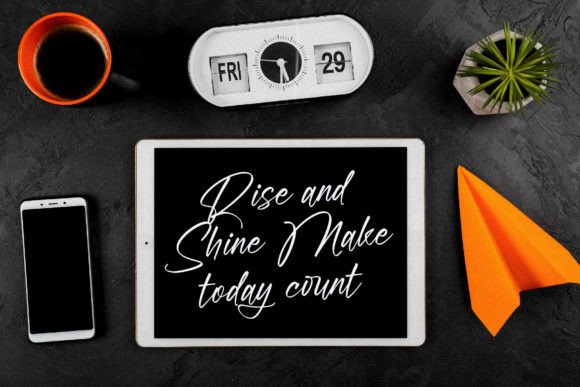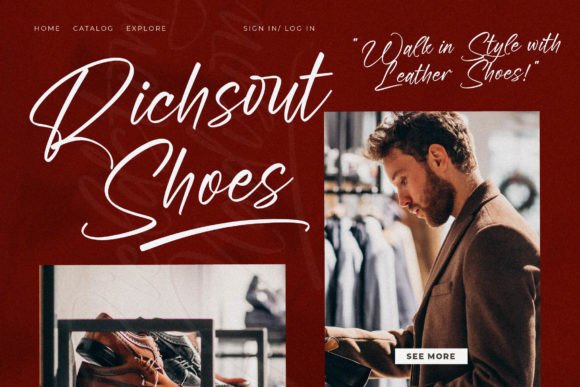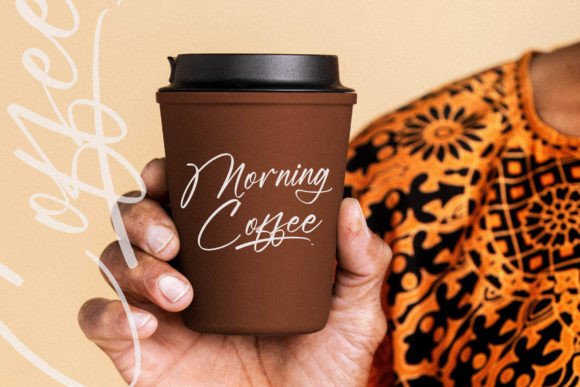
Introduction to Rieldstomy Madison Font
Rieldstomy Madison is a stylish and incredibly elegant handwritten font.
It is defined by smooth curves and is perfect for fashion branding or editorial designs Use this font for your designs and explore its endless possibilities.
Key Features of Rieldstomy Madison Font
Why Choose Rieldstomy Madison Font?
Rieldstomy Madison Font offers exceptional quality and versatility, making it a valuable addition to your design toolkit. Whether you’re creating for personal projects or commercial use, Rieldstomy Madison Font delivers professional results.